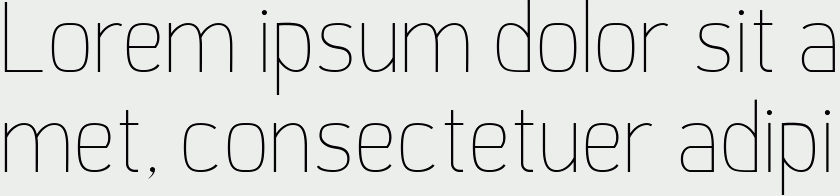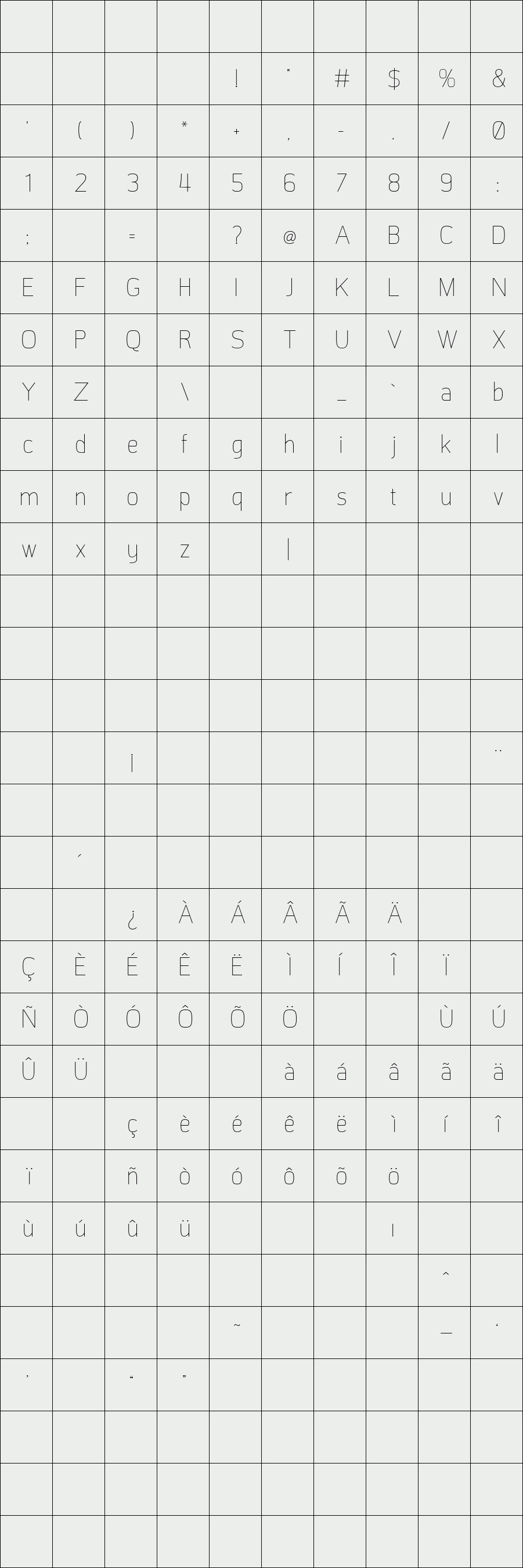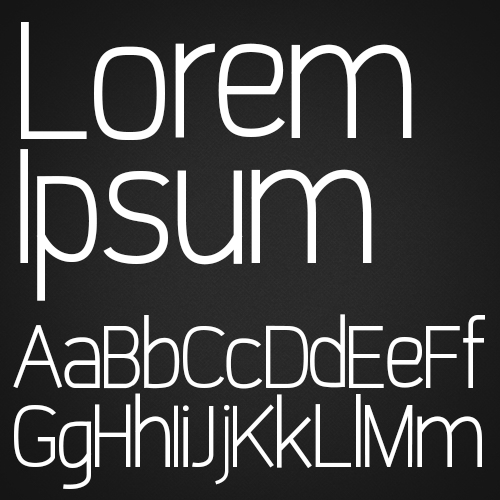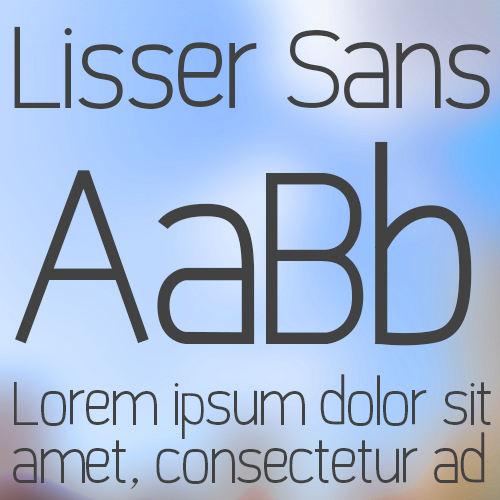
Lisser Sans
/ Lisser Sans Light
Lisser was created under the concepts of softness, subtlety and sophistication
"Lisser" comes from the French language, meaning subtle, soft, lightweight
Designer: Rafael A. F. Veiga